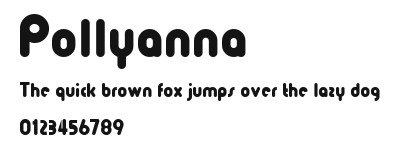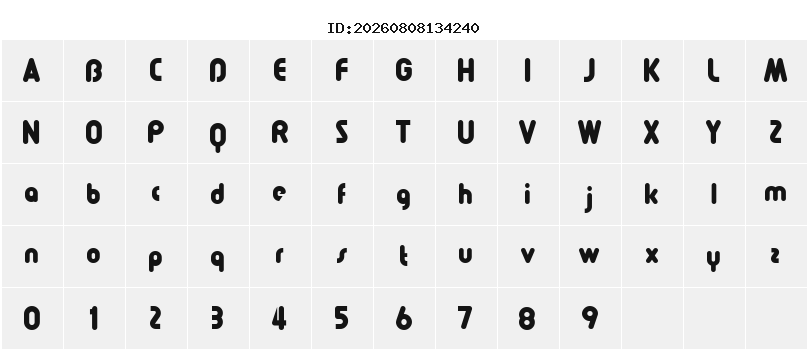
• Font Name: Pollyanna
About Pollyanna.ttf
Pollyanna.ttf is a modern, elegant sans-serif font designed for ultimate readability and visual harmony. Perfect for branding, headlines, web design, and print materials.